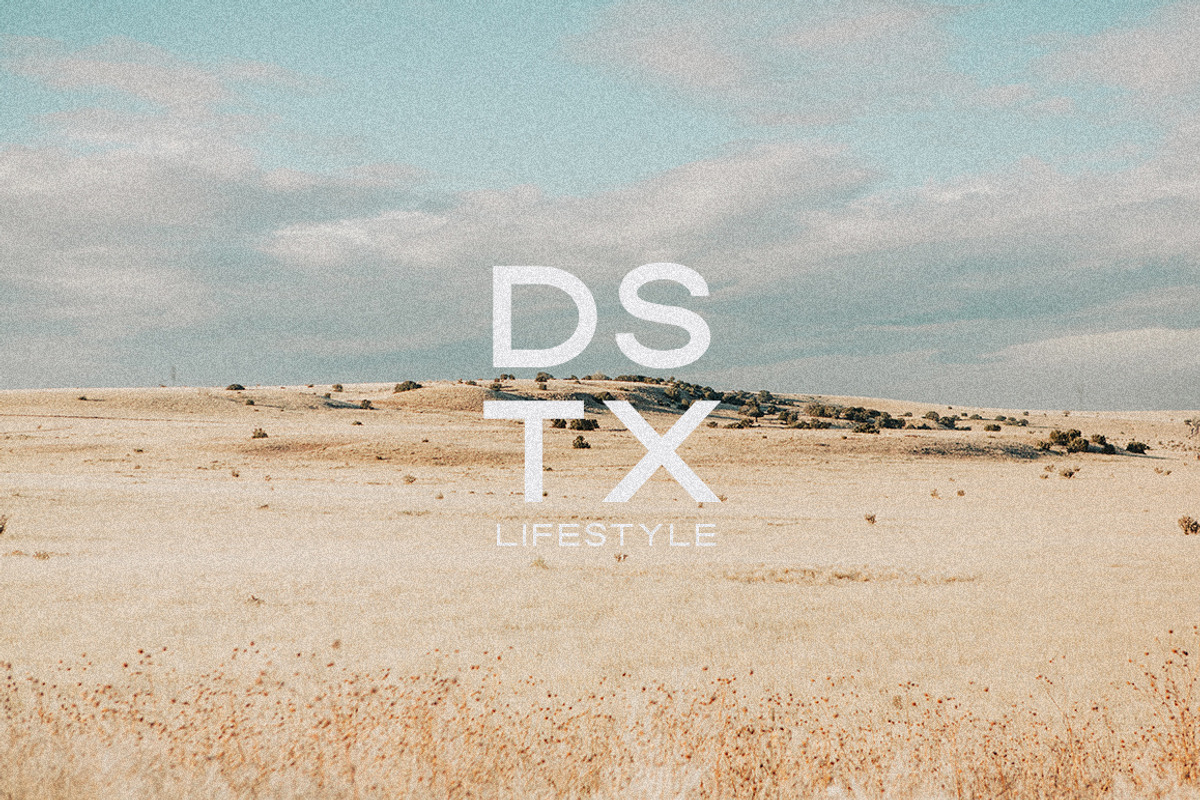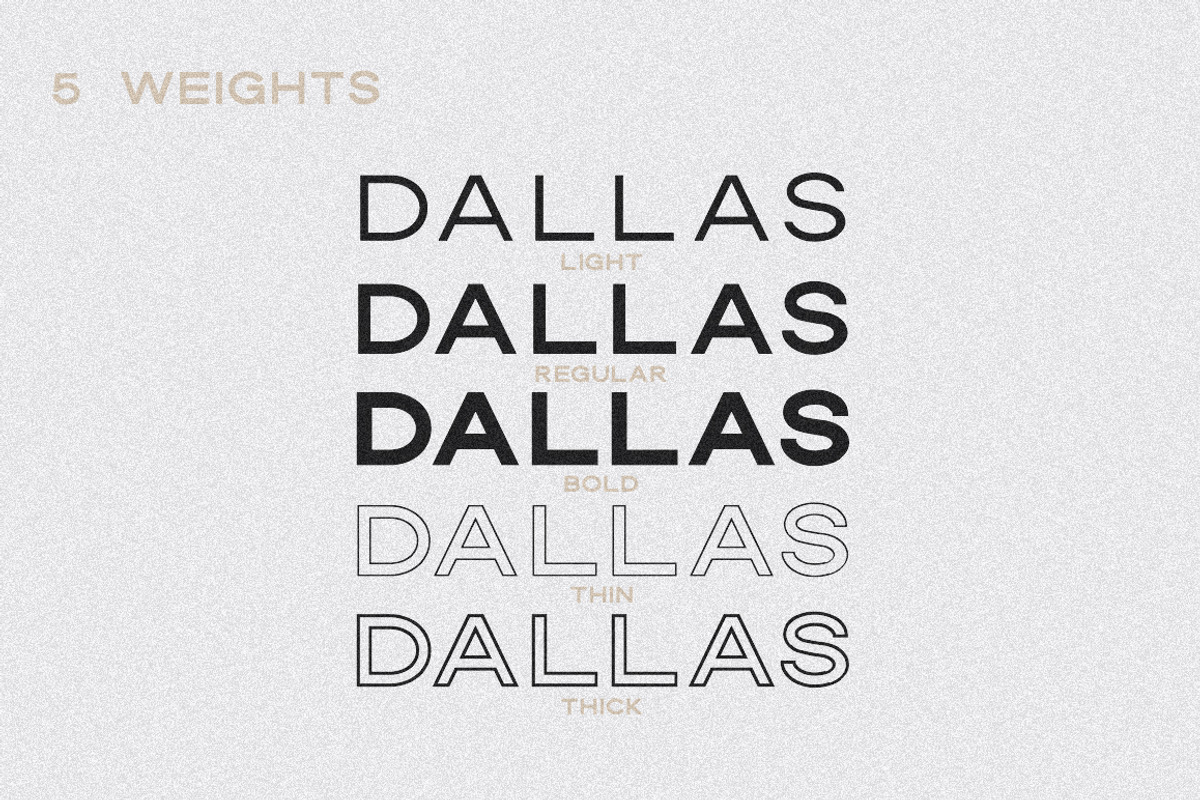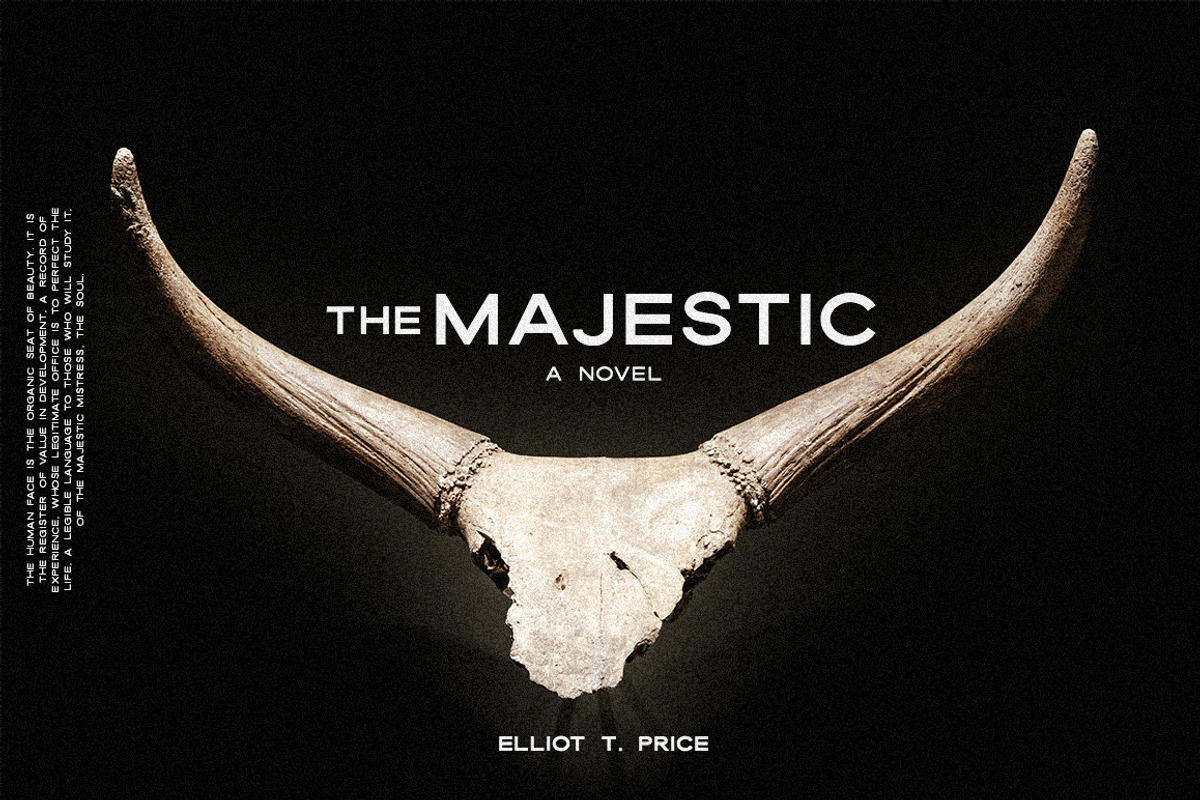
Dallas Font
Dallas is a beautiful all caps vintage sans serif font, so versatile and looks great in just about any context. With five different weights/styles, you can create beautiful, consistent contrast in logos, printed materials, and more! You can even layer the stroke and solid styles to create a more modern effect.